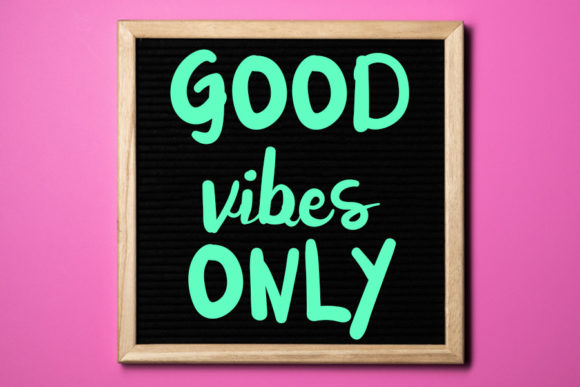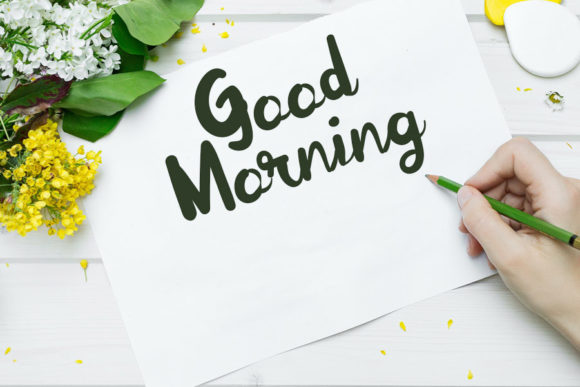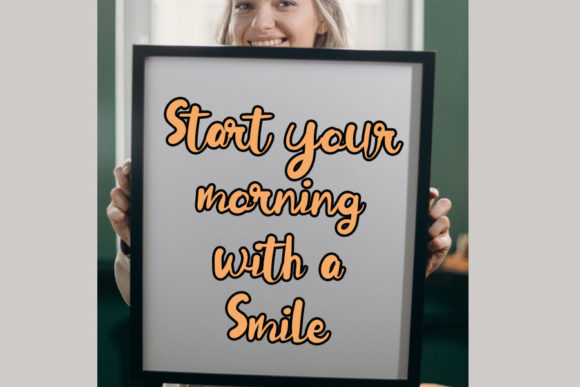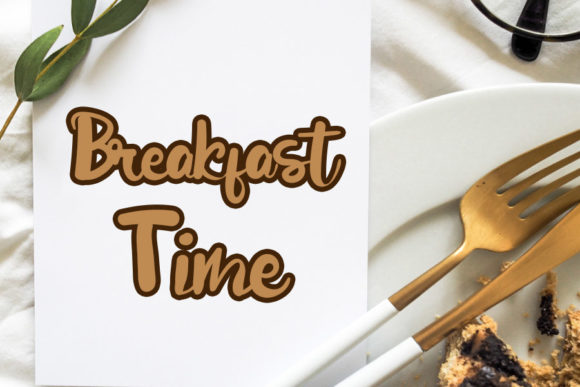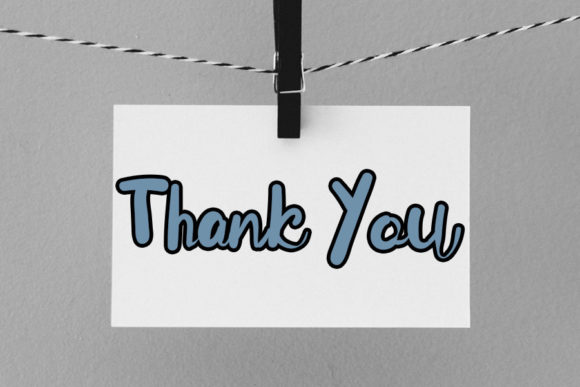
Coffee Break Font: The Perfect Choice for Chic and Timeless Designs
Are you a designer or crafter looking for a font that can add a touch of elegance and sophistication to your work? Look no further than the Coffee Break Font. This beautiful handwritten font is the perfect choice for creating eye-catching logos, branding, and quotes that will make your design come alive.
What Makes Coffee Break Font So Special?
Coffee Break Font is a chic and timeless handwritten font that is designed to add a unique and beautiful touch to your designs. Every letter has a distinctive and elegant feel that will make your work stand out from the crowd. Whether you’re creating a logo, branding materials, or quotes, this font is the perfect choice.
Key Features of Coffee Break Font
- Unique and Beautiful Touch: Every letter in the Coffee Break Font has a unique and beautiful touch that will make your design come alive.
- Handwritten Style: This font has a beautiful handwritten style that adds a touch of elegance and sophistication to your designs.
- Chic and Timeless: The Coffee Break Font is a chic and timeless font that will never go out of style.
- Perfect for Logos and Branding: This font is perfect for creating eye-catching logos and branding materials that will make your business stand out.
- Easy to Read: The Coffee Break Font is easy to read, making it perfect for quotes and other text-based designs.
Why Choose Coffee Break Font?
There are many reasons why you should choose Coffee Break Font for your next design project. Here are just a few:
- Versatility: This font is versatile and can be used for a wide range of design projects, from logos and branding to quotes and more.
- Elegance: The Coffee Break Font adds a touch of elegance and sophistication to your designs, making them perfect for businesses and individuals who want to make a statement.
- High-Quality: The Coffee Break Font is a high-quality font that is designed to produce stunning results.
Design Ideas Using Coffee Break Font
The Coffee Break Font is a versatile font that can be used for a wide range of design projects. Here are a few ideas to get you started:
- Logo Design: Use the Coffee Break Font to create a stunning logo for your business.
- Branding Materials: This font is perfect for creating branding materials such as business cards, brochures, and more.
- Quotes: Use the Coffee Break Font to create inspiring quotes that will motivate and inspire your audience.
- Social Media Graphics: This font is perfect for creating social media graphics that will make your posts stand out.
In conclusion, the Coffee Break Font is a beautiful and versatile font that is perfect for designers and crafters who want to add a touch of elegance and sophistication to their work. With its unique and beautiful touch, handwritten style, and ease of use, this font is the perfect choice for creating eye-catching logos, branding materials, and quotes. So why wait? Download the Coffee Break Font today and start creating stunning designs that will make your work stand out from the crowd.